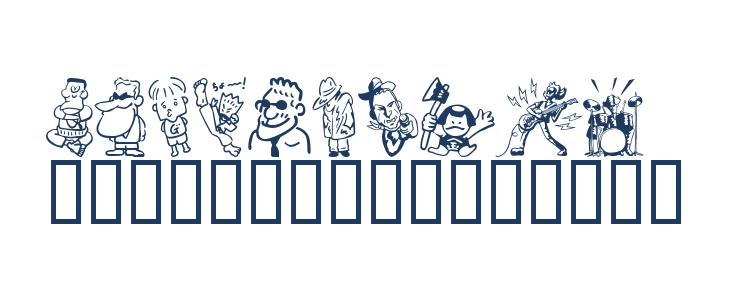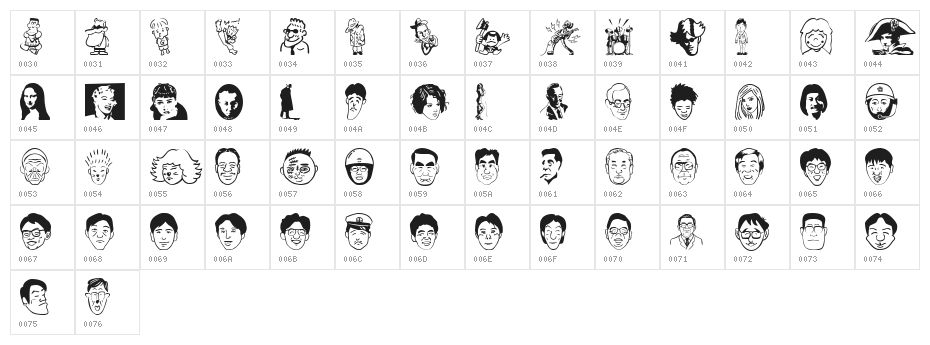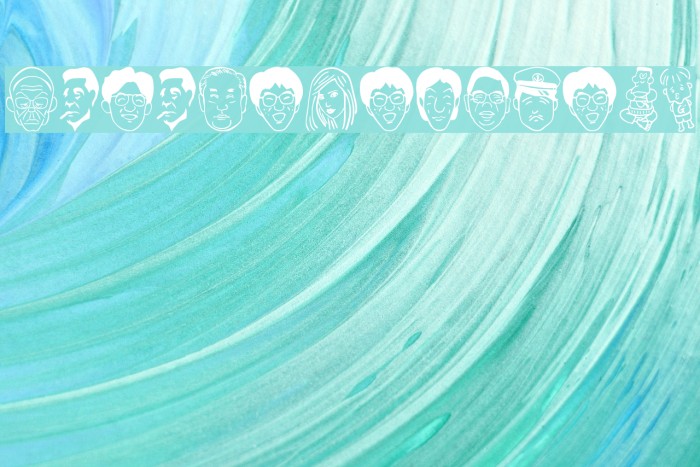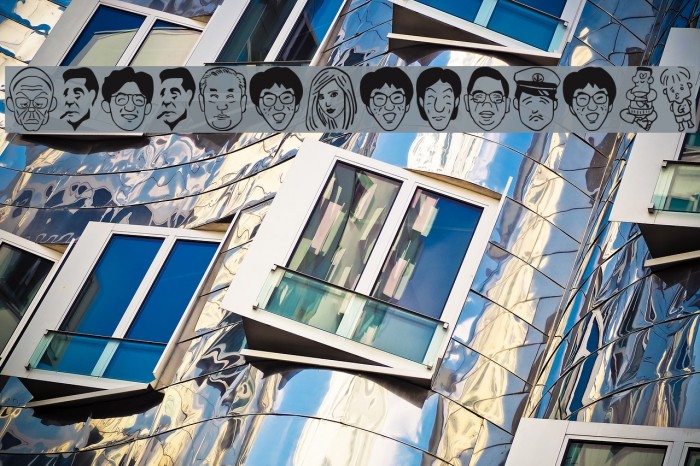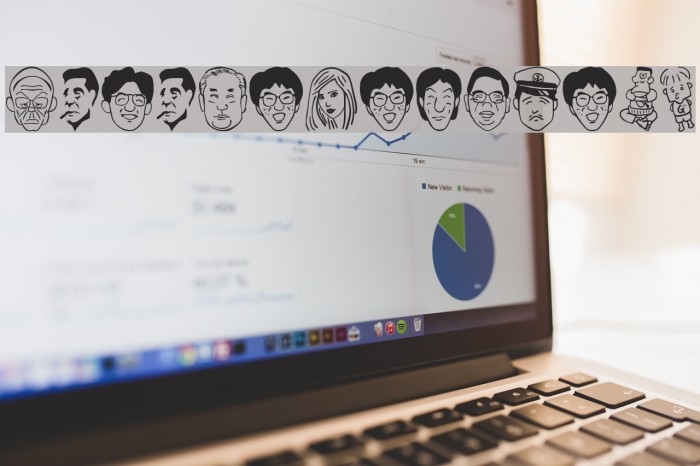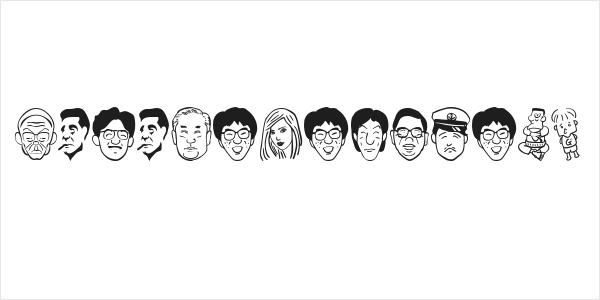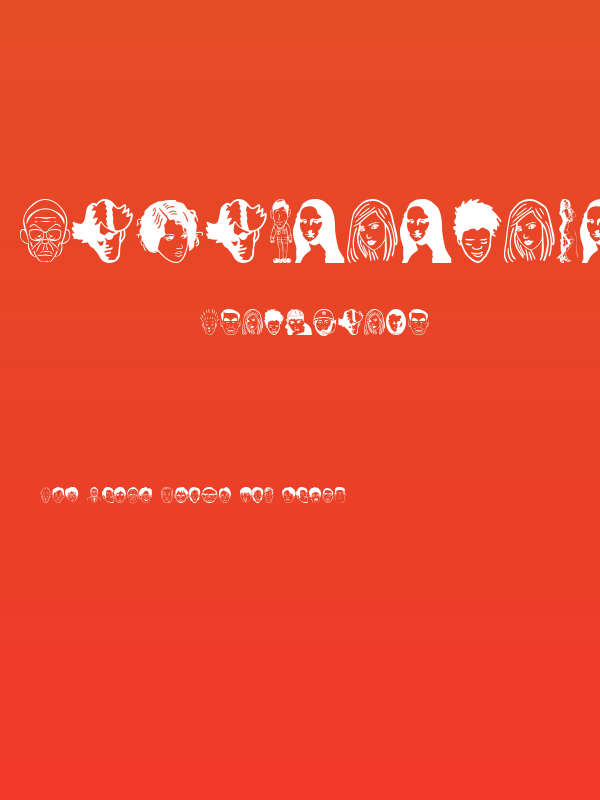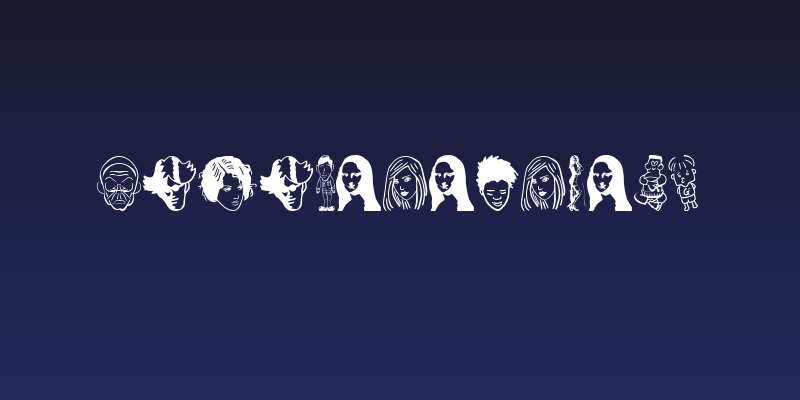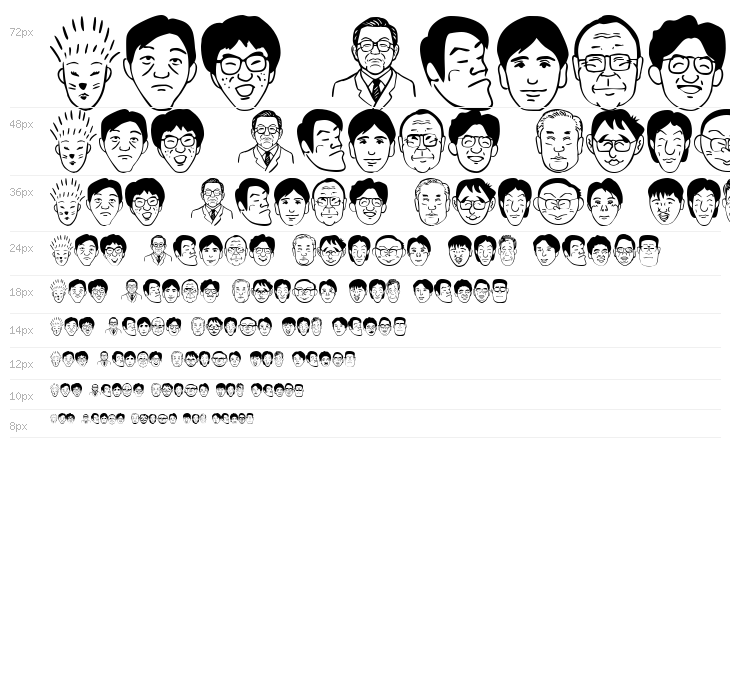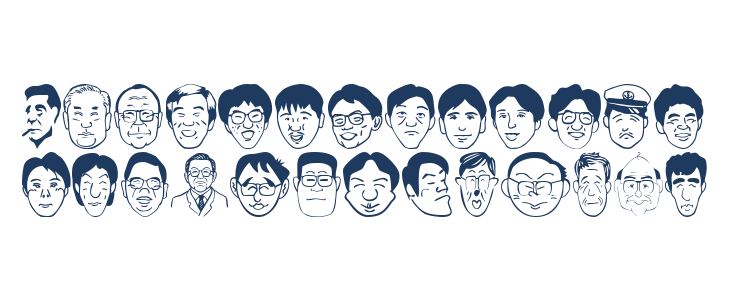
SakabePeople02 Font
SakabePeople02 Description
A decorative dingbat font featuring a variety of hand-drawn cartoon and caricature-style human faces, full-body characters, and musicians, rendered in black and white line art with playful and exaggerated expressions.
| Overall Style | Playful, Cartoonish, Decorative |
| Use Case | Illustrative elements, icons, decorative accents, informal designs. |
| Proposed Projects | Comics, posters, children's books, playful branding, event flyers, educational materials. |